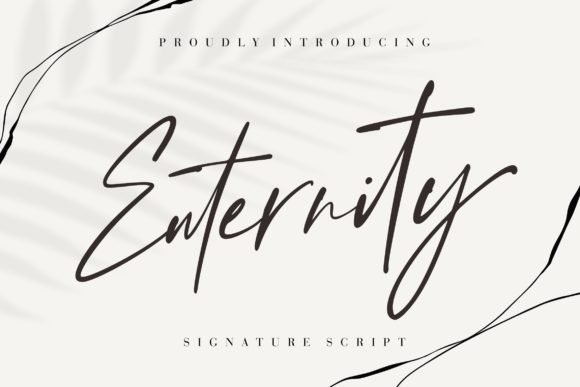
Journey into the world of elegance and sophistication with Enternity Font, a script font that will transform your designs into breathtaking works of art. Inspired by the grace of handwritten calligraphy, Enternity captures the essence of romance and luxury, adding a touch of timeless beauty to every project.
With its clean, thin, and smooth lines, Enternity exudes a delicate charm that will elevate your designs to new heights. Its elegant curves and flourishes evoke a sense of artistry and creativity, making it the perfect choice for creating logos, invitations, wedding stationery, branding materials, and any project that demands a touch of sophistication.
Enternity's PUA encoding allows for effortless access to a treasure trove of glyphs and swashes, empowering you to infuse your designs with an array of stunning variations. Unleash your creativity and let Enternity's fluidity and grace guide you towards design masterpieces.
Whether you're a seasoned designer, a budding entrepreneur, or simply someone with a passion for aesthetics, Enternity Font is your gateway to creating captivating designs that leave a lasting impression. Its versatility and charm transcend genres, making it suitable for a wide range of projects, from wedding invitations to branding campaigns.
Don't let your designs settle for mediocrity. Embrace the allure of Enternity Font and watch as your creations blossom into works of art. Its timeless beauty and undeniable elegance will captivate your audience, leaving them enchanted and inspired.